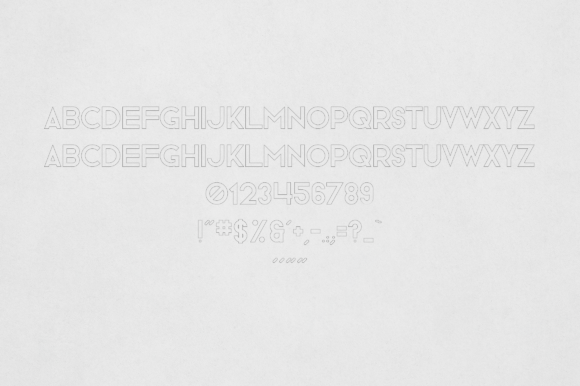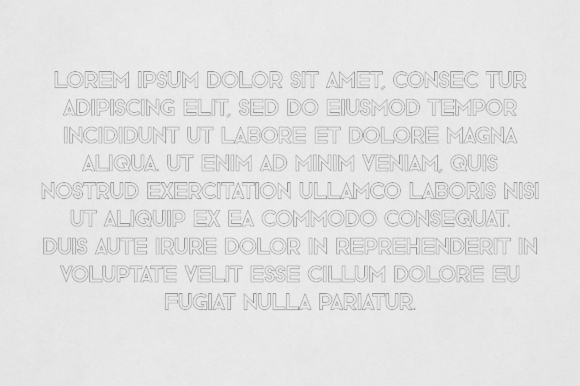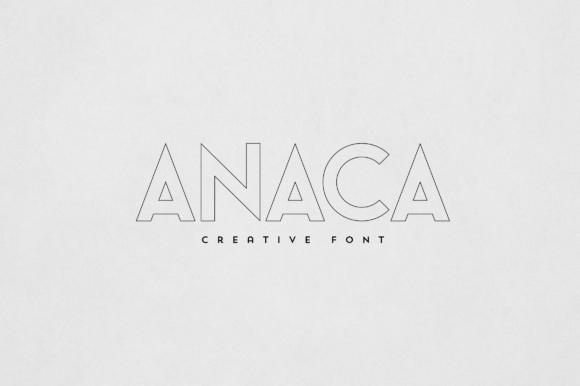
Introducing Anaca Font: Elevate Your Typography with Elegance and Versatility
In the world of design, typography plays a crucial role in conveying messages, expressing creativity, and establishing brand identities. For designers and crafters seeking to elevate their projects with a touch of sophistication and uniqueness, the Anaca Font is an exceptional choice. This elegant and versatile display font is designed to transform your typography into a truly distinctive element that captures attention and inspires.
The Essence of Anaca Font
Anaca Font stands out with its elegant and versatile characteristics, making it an ideal selection for a wide range of design applications. Whether you’re working on logos, branding materials, headlines, or plain text, Anaca brings a level of refinement and style that is hard to match. Its unique design ensures that your text doesn’t just convey information but also tells a story of luxury, creativity, and attention to detail.
The versatility of Anaca Font makes it suitable for diverse design projects. Here are some areas where Anaca can make a significant impact:
- Branding Projects: Establish a strong brand identity with a font that exudes elegance and professionalism.
- Home-ware Designs: Add a touch of sophistication to your home-ware designs, making them stand out with a stylish and contemporary look.
- Product Packaging: Elevate your product packaging with a font that communicates luxury and quality, helping your products to stand out on store shelves.
- Magazine Headers: Create captivating magazine headers that draw readers in with the elegant and eye-catching design of Anaca.
- Text Overlay: Use Anaca as a stylish text overlay on any background image, adding depth and interest to your visual content.
Why Choose Anaca Font?
Choosing Anaca Font for your design projects comes with numerous benefits:
- Unique Typography: Stand out from the crowd with a font that is both elegant and distinctive.
- Versatility: Use Anaca across various design projects, from digital content to print materials, without compromising on style or legibility.
- Easy to Read: Despite its elegant design, Anaca maintains a high level of readability, ensuring your message is conveyed effectively.
- Customization: Anaca can be easily customized to fit your project’s specific needs, allowing for creative freedom and flexibility.
Tips for Using Anaca Font Effectively
To maximize the impact of Anaca Font in your designs, consider the following tips:
- Pair with Simplicity: Combine Anaca with simpler fonts or design elements to create a balanced and harmonious look.
- Experiment with Colors: Don’t be afraid to experiment with different colors and gradients to find the perfect match for your design.
- Play with Sizes: Utilize varying font sizes to create visual hierarchy and emphasize key messages.
- Consider Contrast: Ensure there is sufficient contrast between the text and background to maintain readability and visual impact.
Anaca Font is a powerful tool for designers and crafters looking to infuse their projects with elegance, versatility, and a touch of uniqueness. Its wide range of applications, from branding and packaging to digital content, makes it an invaluable asset in any designer’s toolkit. By incorporating Anaca into your design workflow, you can create typography that not only stands out but also leaves a lasting impression on your audience.
Whether you’re a professional designer or a DIY enthusiast, Anaca Font invites you to explore new possibilities in typography and design. With its elegant design and versatile application, Anaca is poised to become your go-to font for projects that demand a bit of sophistication and a lot of style.